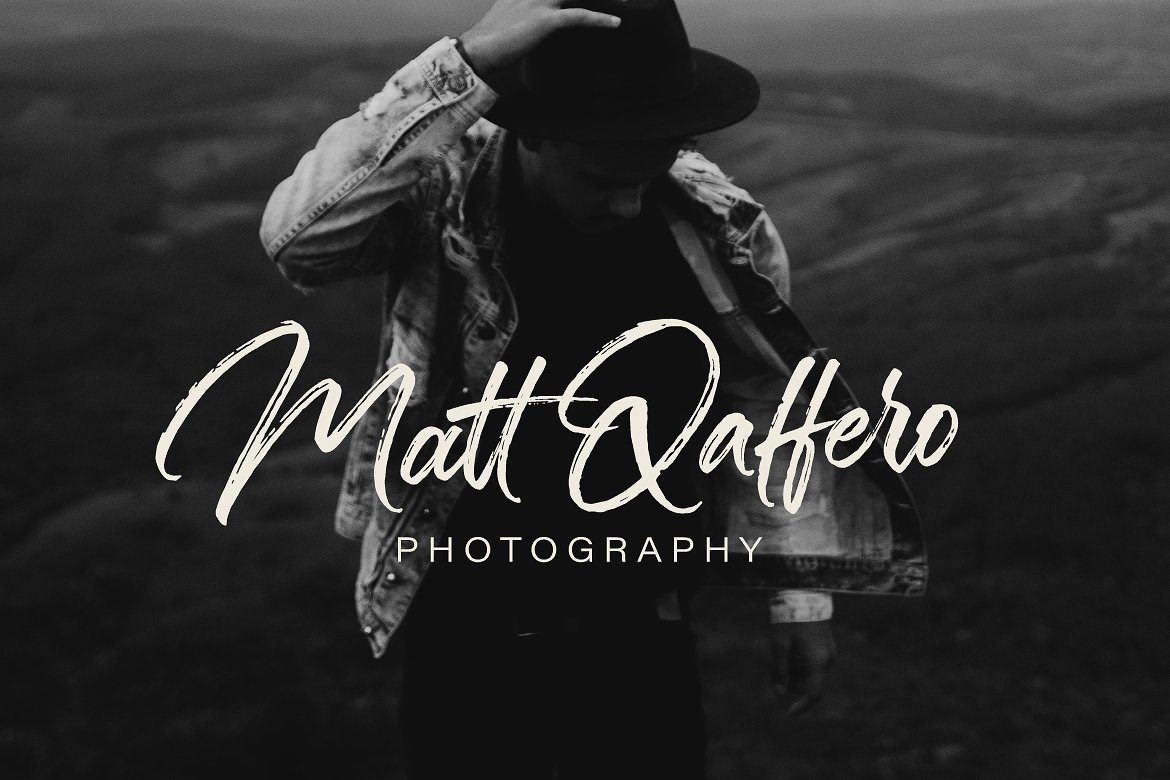
Sandbrush Script
Sandbrush Script Font
Sandbrush is a natural hand brushed font. Work great for any design needs : logo, branding, modern advertising design, logos, poster quote, book / cover Title, editorial design, website / blog, card, custom mug, pillow, t-shirts, and any hand-lettered needs.